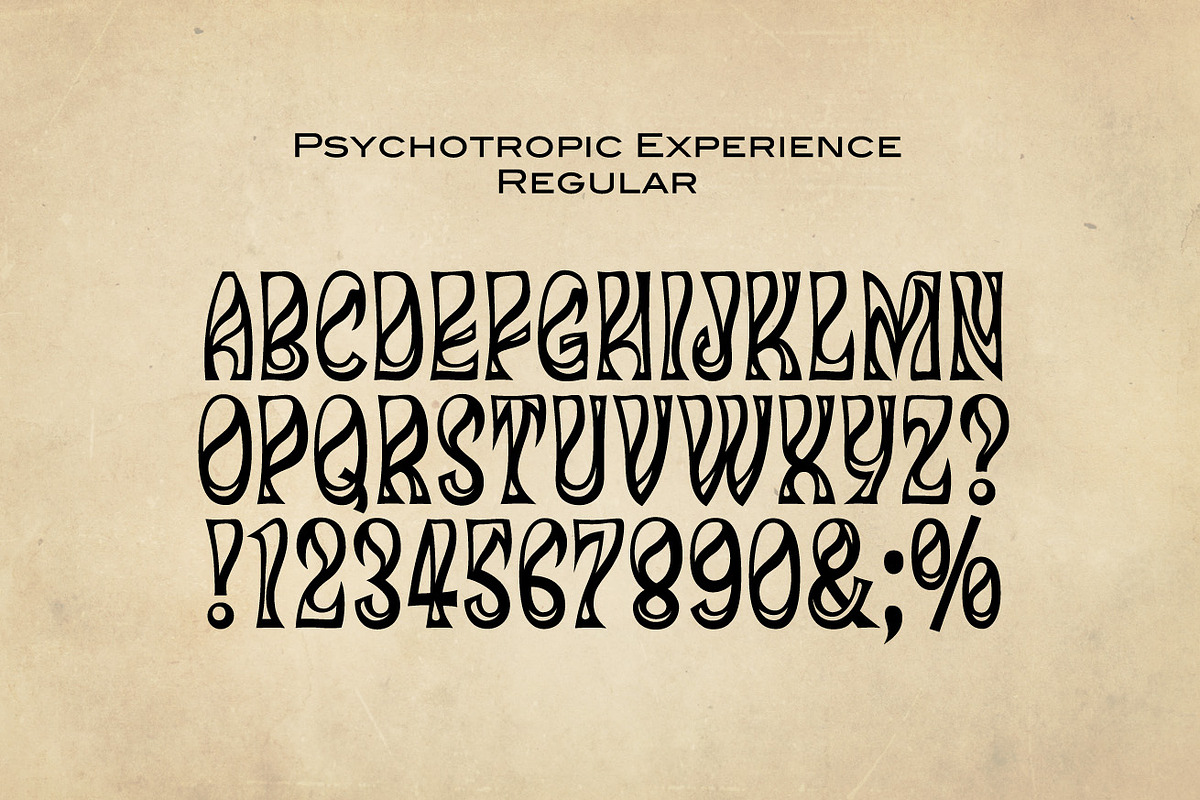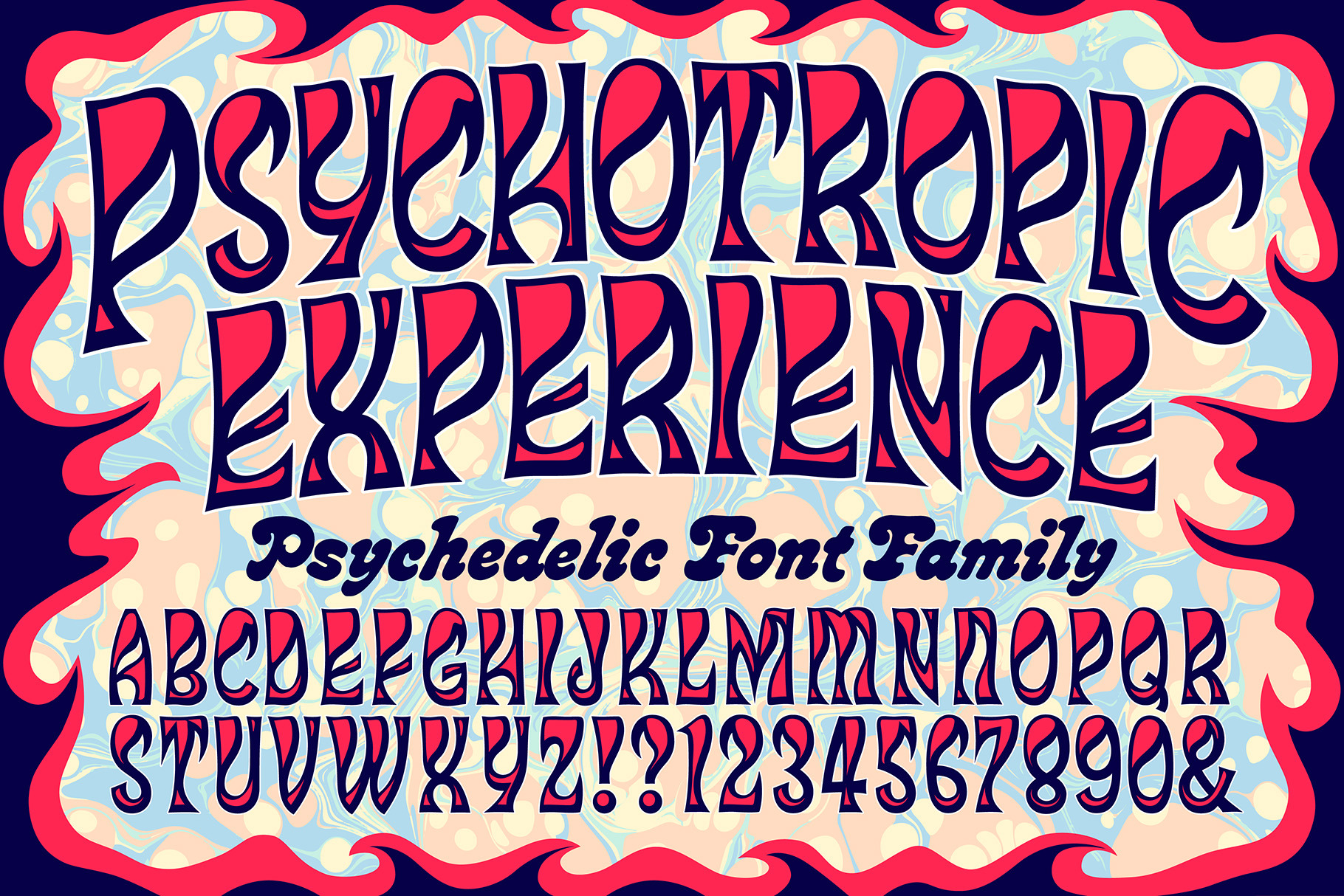
Psychotropic Experience Font Family
PSYCHOTROPIC EXPERIENCE FONT FAMILY
Here's a unique and unusual .otf/.ttf font pack in the tradition of late 1960s psychedelic poster and album styles. Use it as a single color or a two-toned design for a super-offbeat and eye-catching look.
Once loaded on your system, the three versions of the font show in your menu as the following three "weights": Psychotropic Experience, Psychotropic Experience Fill, and Psychotropic Experience Solid. The 3-alphabet collection works together seamlessly to allow you to assign one color to the body of the letter, and a second color to the inset fill areas. Just copy your text block, paste in place, reassign the font to the "Fill" version, choose a complimentary color, and off you go.